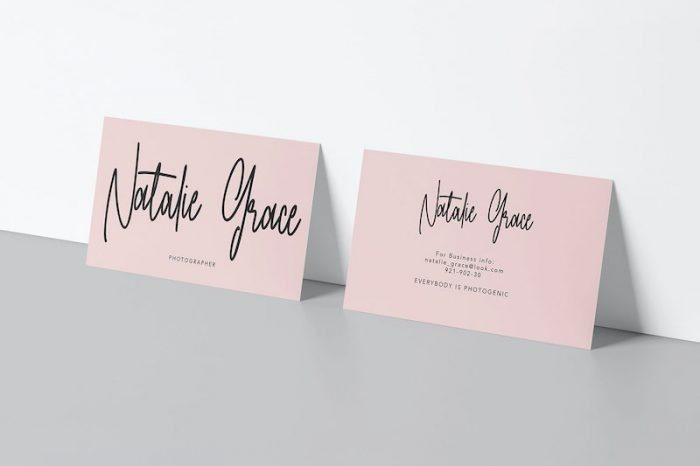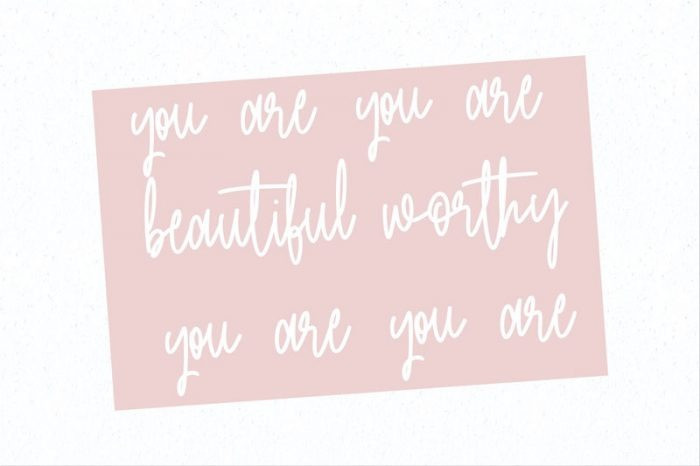
Attasey Signature Font
Attasey Signature Font is a modern feminine font that is great for a variety of projects. Every single letter has been carefully crafted to make your text look beautiful.